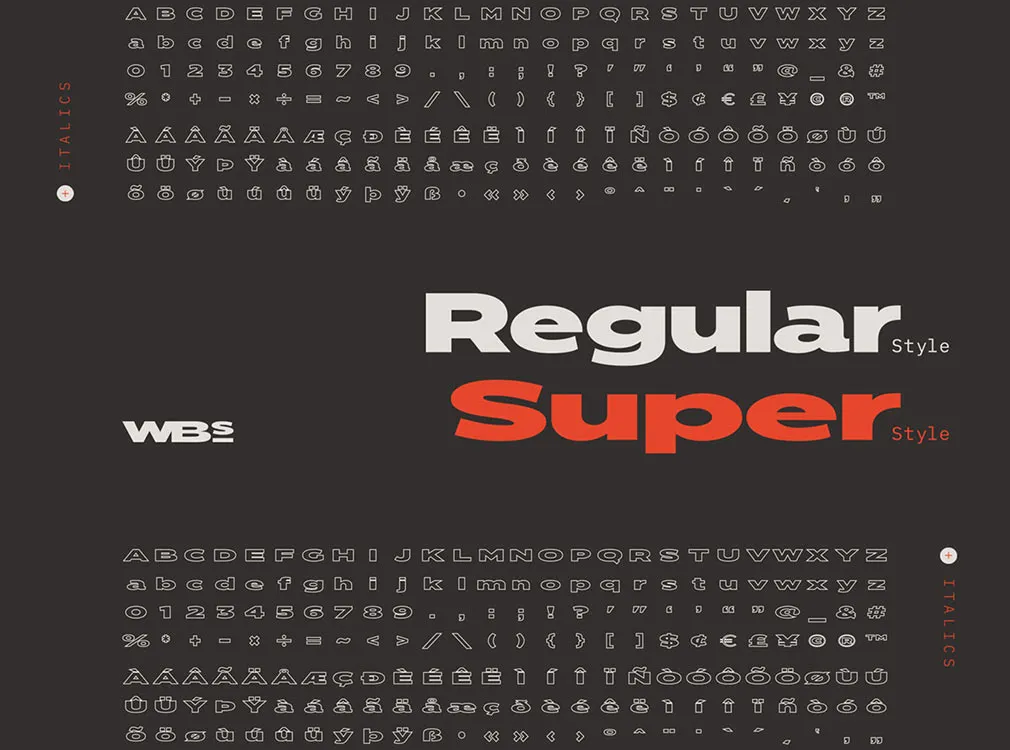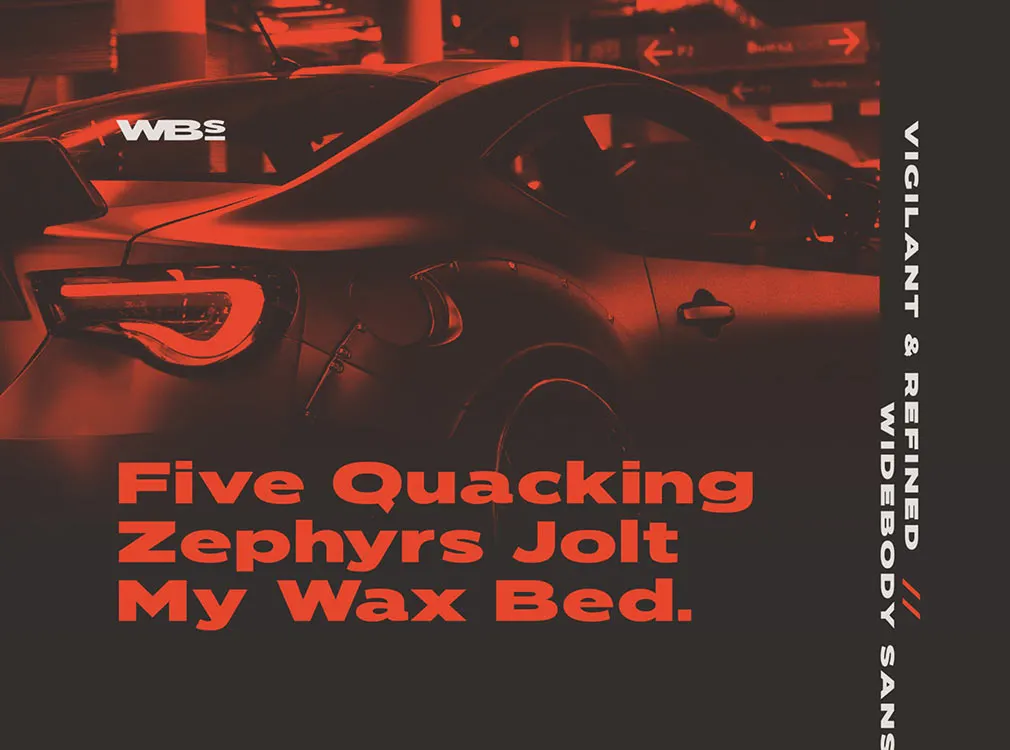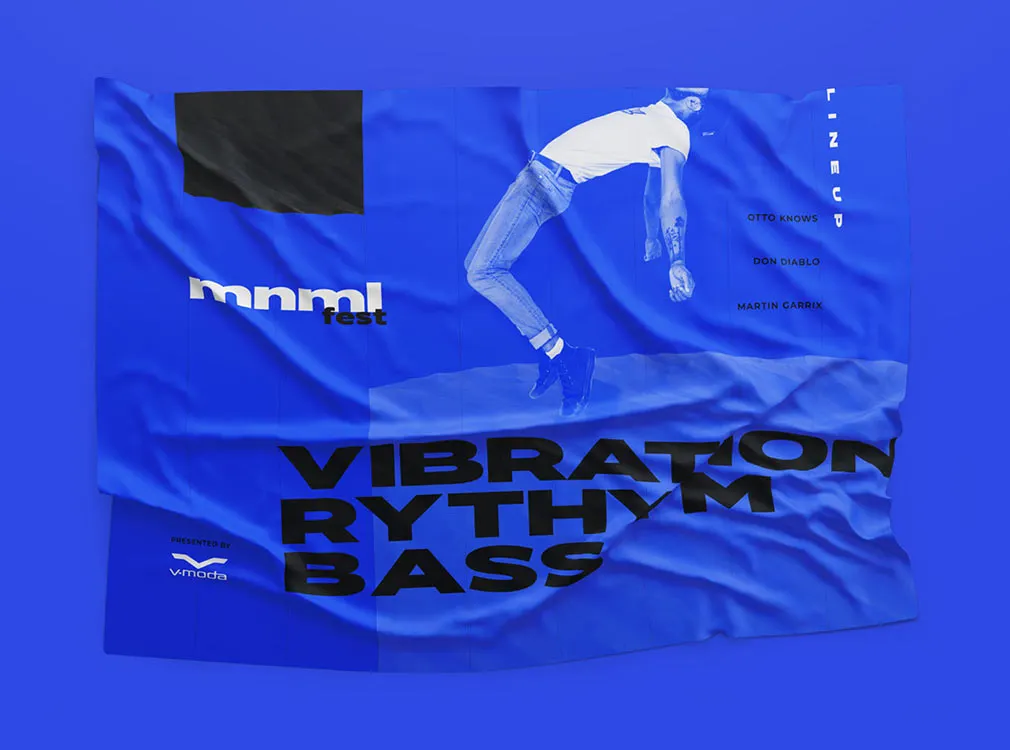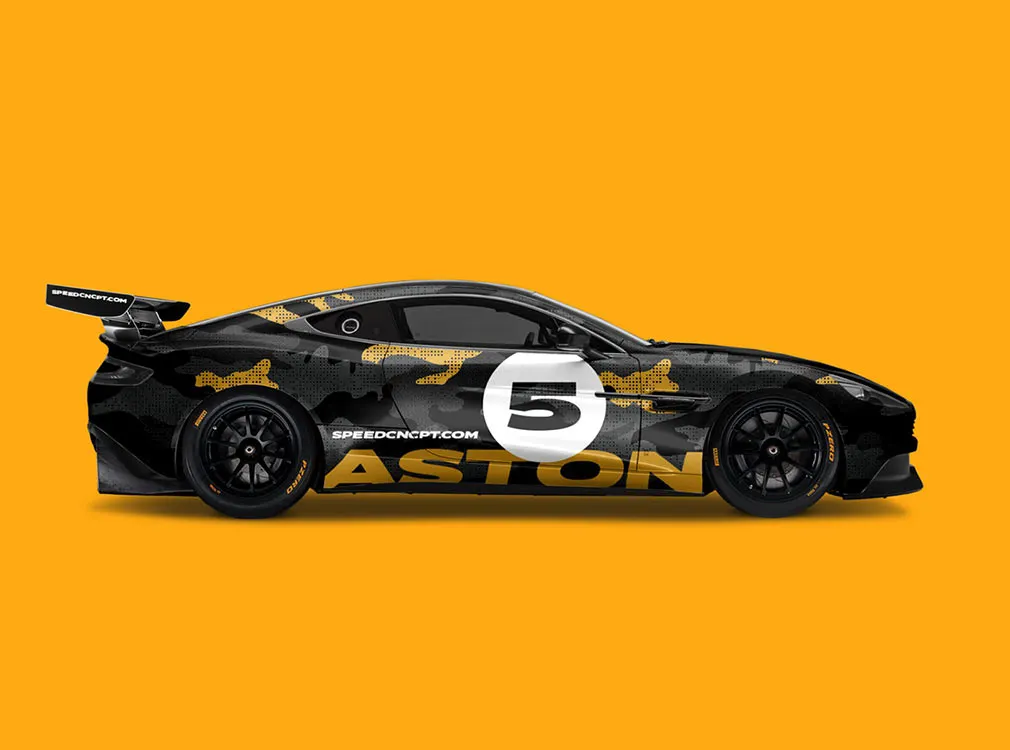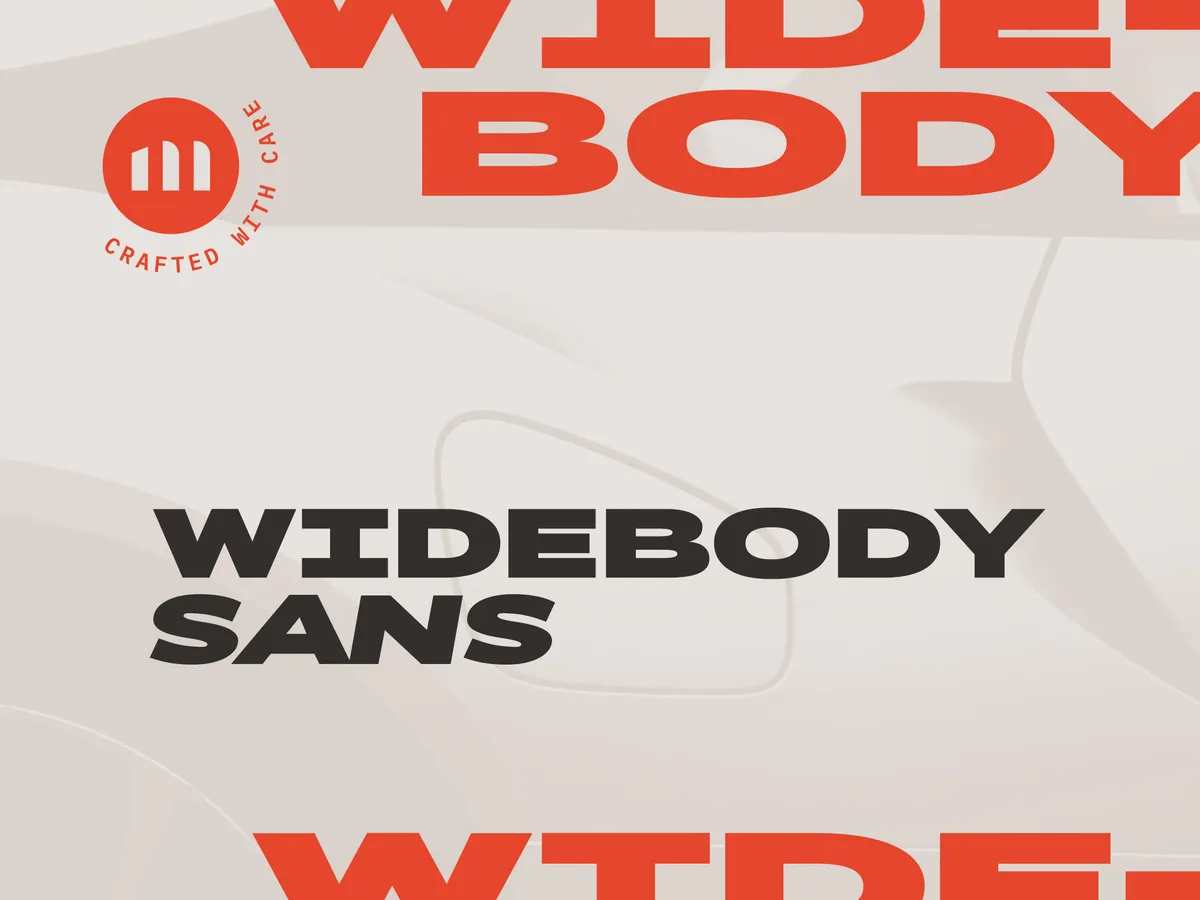
Widebody Sans Serif Font
Is there a sharp line between strict geometry and playful chubby forms? This sans serif font is a clear "no" answer to this question. Such typeface is here today for your striking projects!
This font communicates with a sense of movement and structure without the need for additional serifs and embellishments. What is more, included upper and lowercase, multi-language support and four styles broaden your creative horizons to its full extent! Grasping its presence in printouts, logotypes, web design, and various presentations will stick audience's attention as glue, just try it out and you'll see.